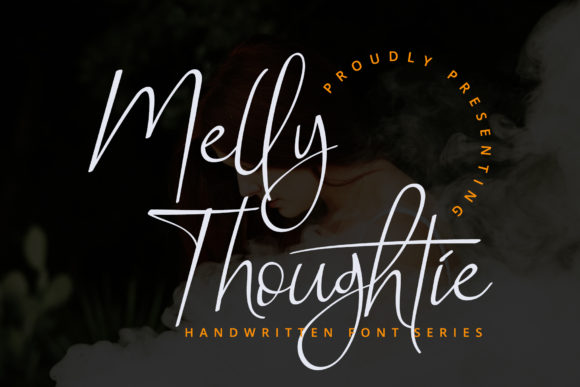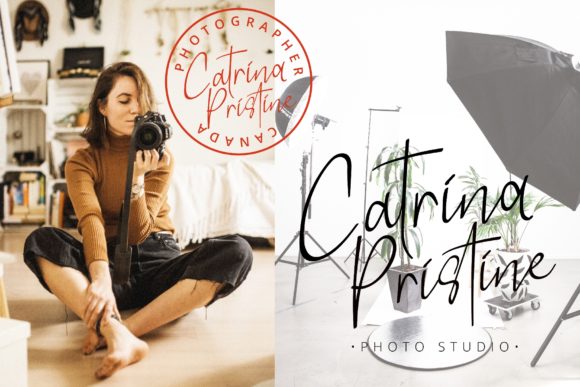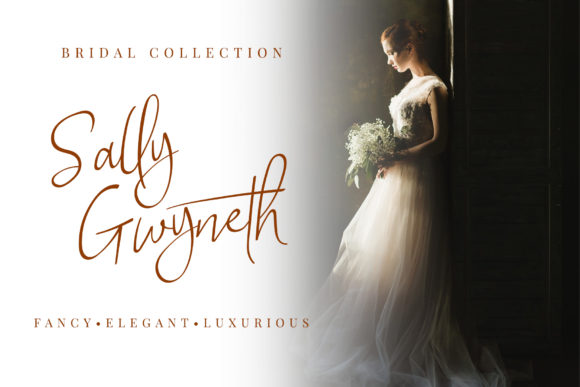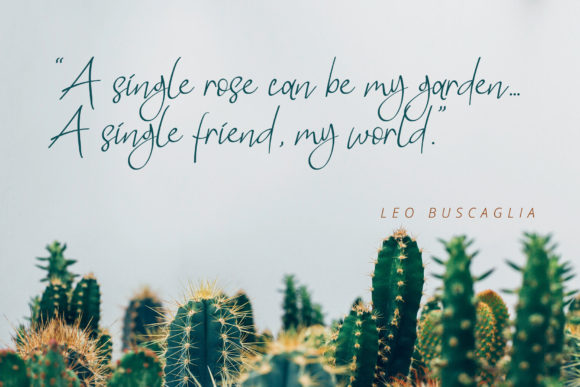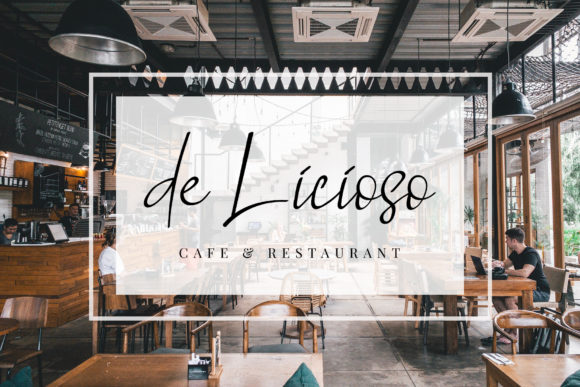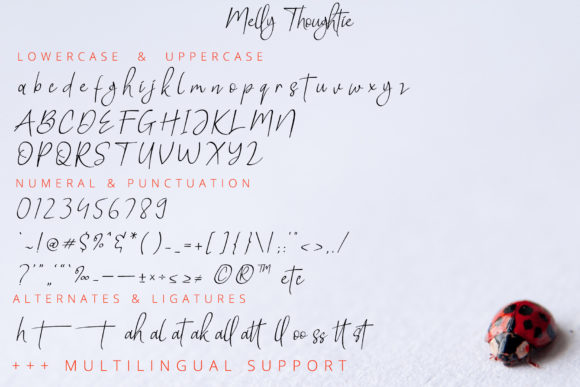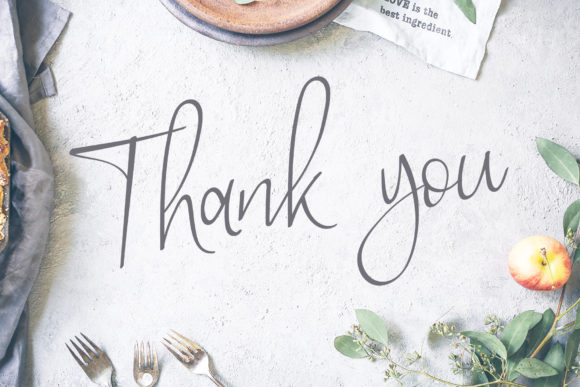
Melly Thoughtie Font
About Melly Thoughtie Font
Melly Thoughtie is a modern and cute script font. It will elevate a wide range of design projects to the highest level, be it branding, headings, wedding designs, invitations, signatures, logos, labels, and much more!